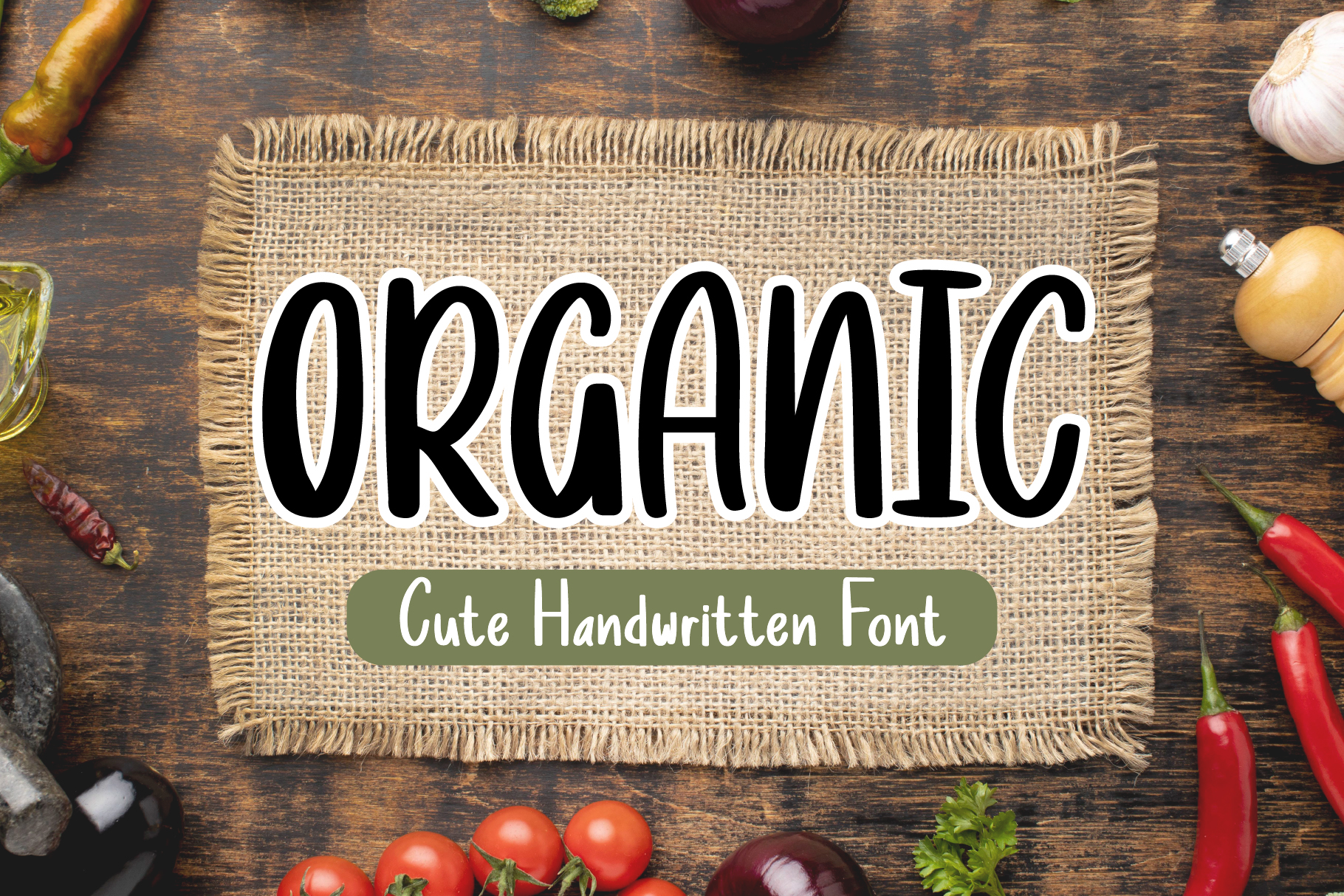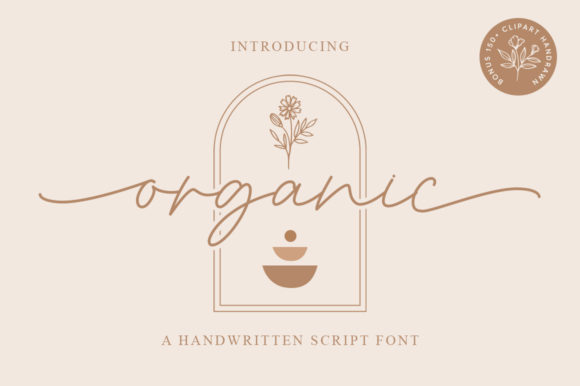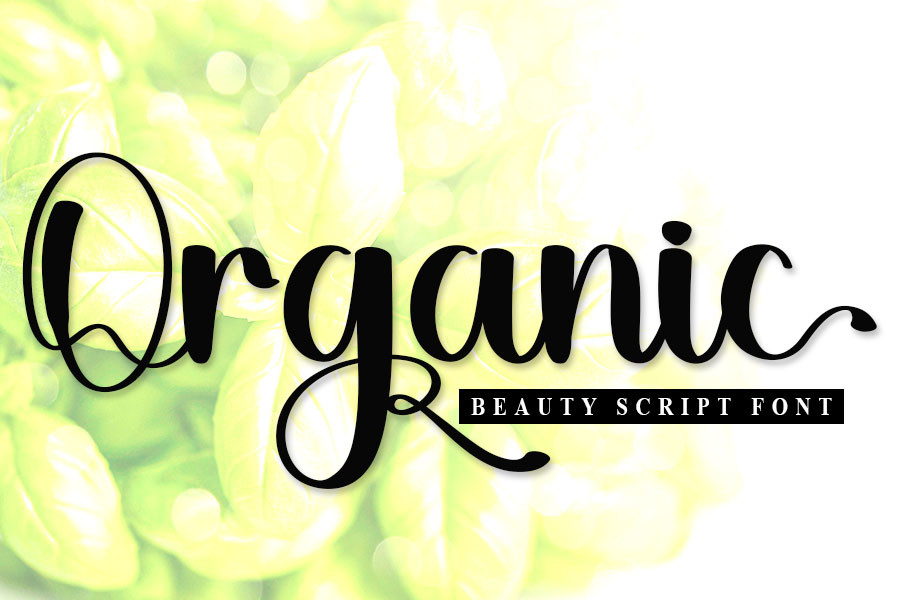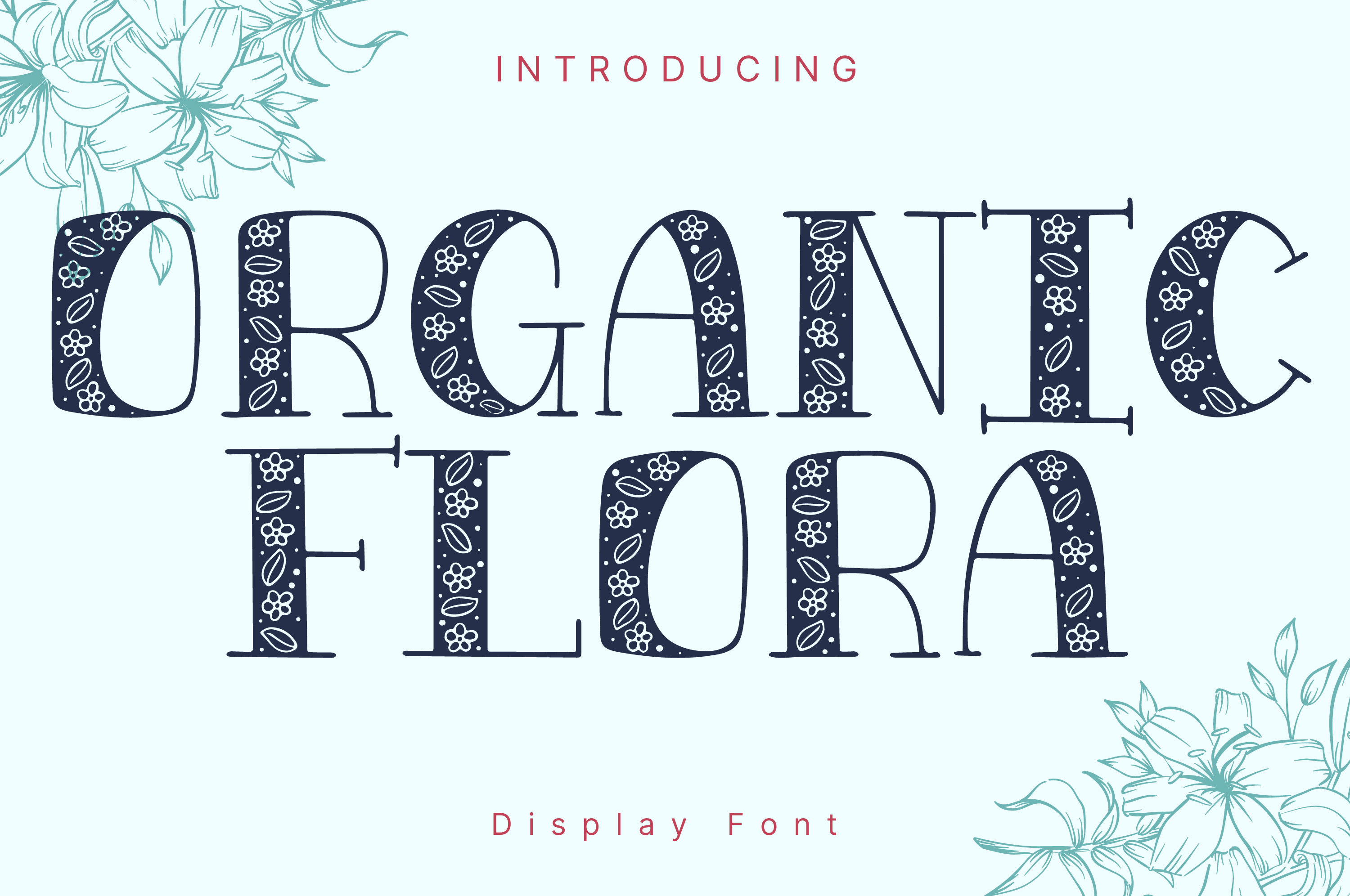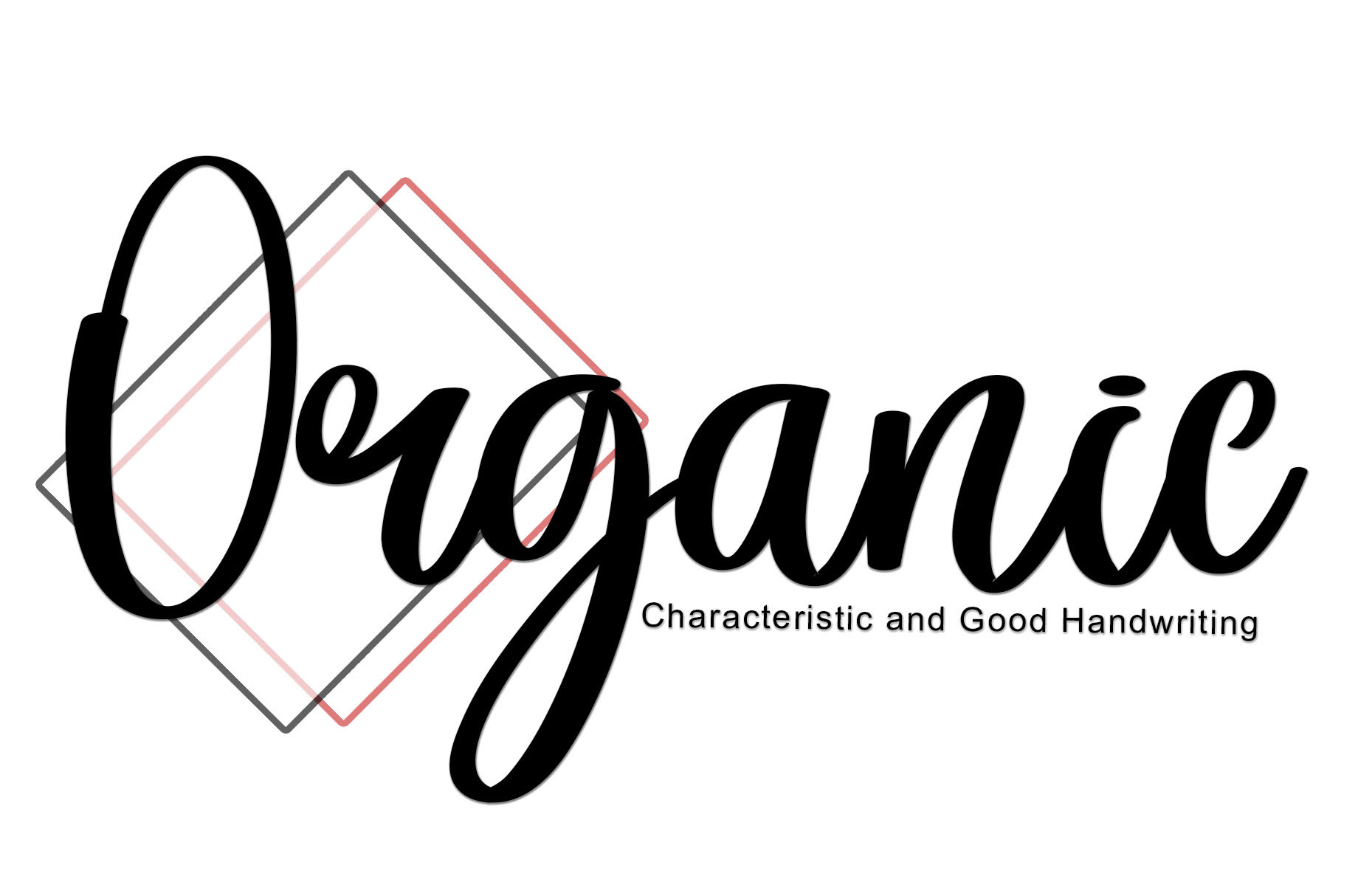
17 Stunning Organic Fonts for Creative Projects (Free Download)
Explore 17 stunning organic fonts, all free to download, perfect for creative branding, packaging, social media, and Etsy or Amazon designs. Each font offers unique hand-crafted style, with direct links—including top picks from Creative Fabrica—for quick project inspiration.
Organic fonts bring a hand-crafted, nature-inspired feel to every design they touch—something today’s designers, content creators, and e-commerce sellers (from Etsy to Amazon) crave for authenticity and impact. Whether you’re launching new branding, creating social media graphics, or developing bespoke product packaging, finding the right organic fonts free download options can transform your creative projects from generic to unforgettable. This expert-curated list spotlights top-quality free organic fonts that are as versatile as they are visually striking, so you can highlight your brand’s natural essence and captivate your audience with ease. Each selection emphasizes readability and charm, ensuring your typography feels approachable yet unique. Explore these fonts to elevate website headers, wedding invitations, cafe menus, or any project where a genuine, earthy ambiance is a must. Ready to make your design stand out? You’ll find instant download links below, sourced especially for US and international creators. Don’t forget to check our extended resources here: 20 Essential Slab Serif Fonts for Pro Projects (2026)
Organic Font by Robbots stores Handwritten, Playful Brand logos, Social posts, Stickers Commercial & Personal
Organic Flora Font by AchiArt Natural, Elegant Script Wedding invites, Branding, Packaging Commercial & Personal
Organic Font by Sansana Bold, Modern Organic Web banners, Ads, Posters Commercial & Personal
Organic Font by FreshTypeINK Casual Sans, Soft Curves Menus, Instagram, Crafts Commercial & Personal
Organic Font by Veil Rustic, Decorative Event graphics, Quotes, Signs Commercial & Personal
This font features playful, rounded letters reminiscent of hand-painted signage. Its natural, breezy vibe makes it ideal for casual branding, kids’ projects, or earthy product labels. Use this style for sticker design, boutique logos, or social media graphics where approachability and warmth matter. The type’s subtle charm elevates any DIY, craft, or eco-focused brand.
Organic Flora brings a touch of floral elegance with its flowing script and botanical ambiance. Perfect for wedding invitations, upscale product packaging, or natural beauty brands, this font gives every word a graceful, romantic touch. It works beautifully for stationery, boutique branding, and Instagram highlights, offering both sophistication and warmth.
This bold, modern typeface delivers organic flair through soft, uneven lines. Its contemporary character stands out in web design, eye-catching banners, and advertisements. The minimal yet charismatic look makes it a strong choice for branding tech startups, organic product shops, or wellness websites that want a clean, trust-inspiring feel.
This font pairs casual sans serif structure with gentle curves, resulting in a relaxed, friendly aesthetic. Excellent for printed menus, handmade product tags, or adding personality to Instagram stories, it fits restaurant identities and creative blogs seeking a laid-back tone. Its clean approachability makes it versatile for both digital and print projects.
Bold brush strokes and rustic textures set this font apart, giving it boho appeal and a hand-drawn authenticity. It’s a great choice for event signage, home decor prints, or inspirational quotes shared on social platforms. If your project calls for a touch of the outdoors or creative whimsy, this typeface delivers beautifully.
This font’s softly uneven letters convey genuine, approachable energy. Its versatility shines on artisanal packaging, eco-conscious branding, or lifestyle blogs. Use it for greeting cards, recipe books, or earthy Instagram promos—anywhere a subtle, natural feel supports your message.
Combining playful spontaneity with clear readability, this font is suited for children’s books, learning materials, or uplifting marketing campaigns. The crafted details hint at a homemade quality, making it perfect for creative gifts, blog headers, or social engagement posts seeking joyful warmth.